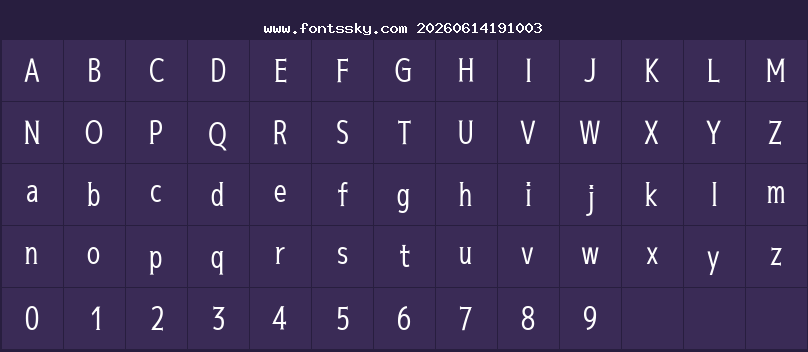
黒薔薇シンデレラ Preview
• Font Name: 黒薔薇シンデレラ
• Full Font Name: 黒薔薇シンデレラ
About 黒薔薇シンデレラ.ttf
黒薔薇シンデレラ.ttf is a modern, elegant sans-serif font designed for ultimate readability and visual harmony. Perfect for branding, headlines, web design, and print materials.